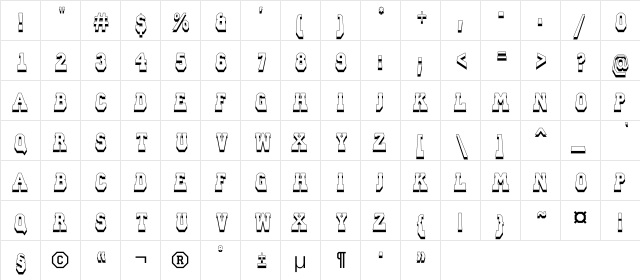
a_CampusPrspDnSh Regular
Design Context for a_CampusPrspDnSh Typeface
a_CampusPrspDnSh takes a measured approach to typography — its balanced proportions and neutral character make it a reliable workhorse for both digital and print work.